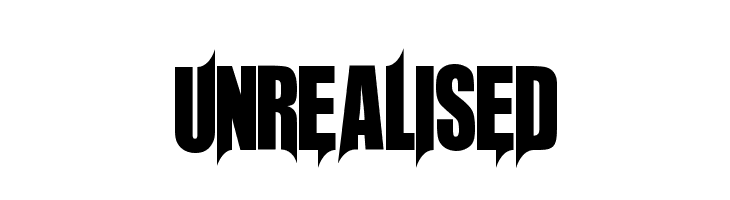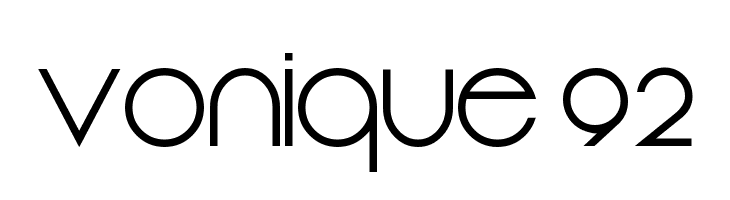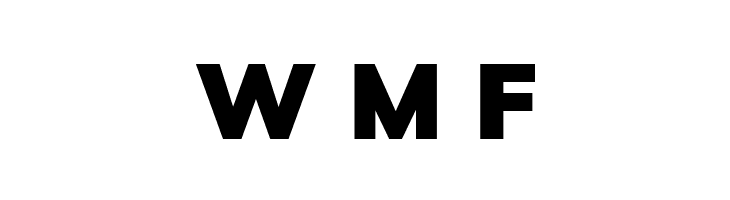
A bold, distressed typewriter-style font with a vintage, textured appearance.
A decorative script font with elegant, flowing curves and ornate flourishes.
A playful and bold script font with dynamic, flowing lines.
A modern sans-serif font with clean lines and excellent readability.
A playful, bold handwritten font with rounded edges and a casual style.
A bold, angular font with dynamic cuts for striking designs.
A bold, italic font with sharp, angular edges and a futuristic style.
A modern, geometric font with consistent stroke width and clear characters.
An elegant script font with ornate swashes and high contrast strokes.
A playful, decorative font with bold, hand-drawn characters and whimsical curves.
A bold, decorative font with angular serifs and high contrast strokes.
An ornate and decorative font with gothic-inspired swirls and embellishments.
A bold, geometric font with a modern, industrial style.
A bold, extended, and modern geometric font.
An elegant and artistic font with decorative swirls and embellishments.
A bold, playful script font with a handwritten style.
A bold, rounded font with a playful and whimsical style.
A modern, clean sans-serif font with uniform strokes and excellent readability.
A modern, geometric sans-serif font with clean lines and balanced spacing.
A bold, rounded font with a playful and friendly style.
Icon-based font with Parisian motifs and landmarks.
A bold, shaded font with a vintage, three-dimensional style.
A bold, jagged font with sharp edges and a dynamic, aggressive style.
A bold, expressive font with a rough, hand-painted style.
An elegant script font with intricate swashes and a calligraphic style.
A bold, italicized font with high contrast and dynamic slant.
A bold, geometric font with a modern and impactful design.
A bold, monospaced font with uniform character width and consistent stroke thickness.
An elegant script font with high contrast and flowing cursive style.